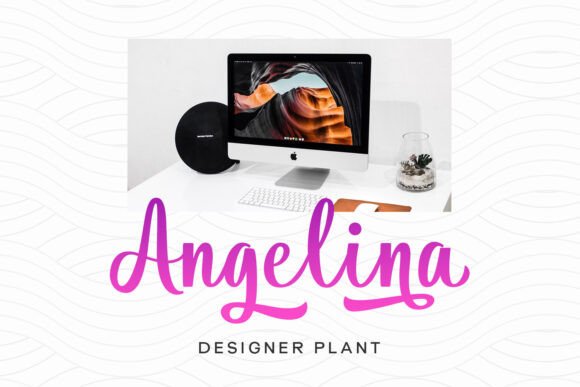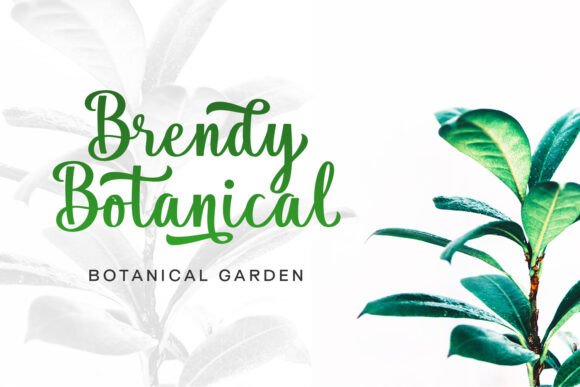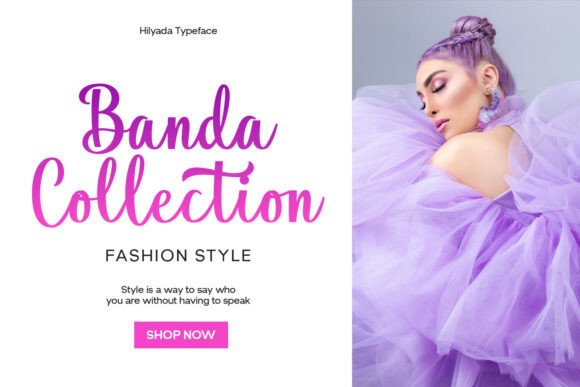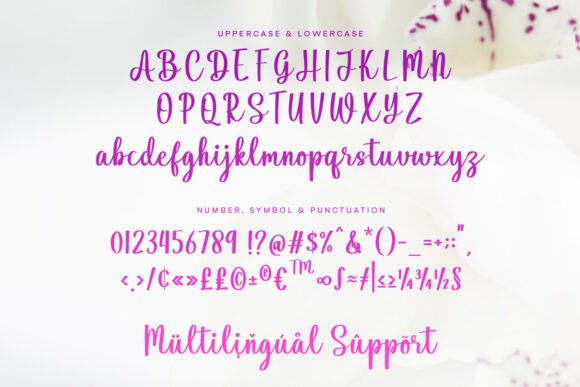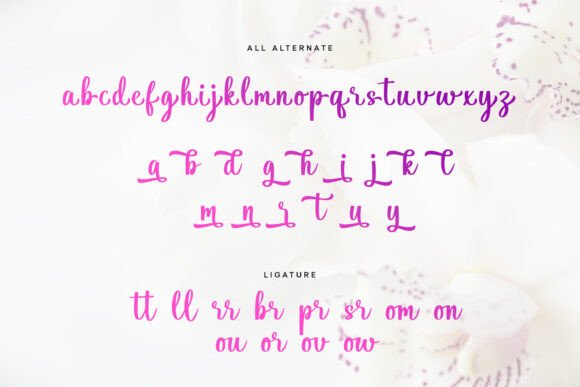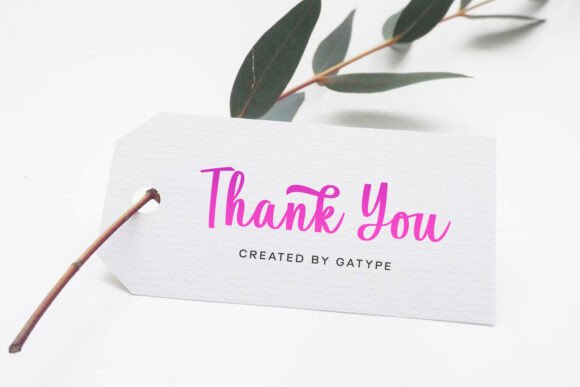
Introduction to Hilyada Font
Have you ever stumbled upon a font that transports you to a whimsical world of romance and elegance? For designers, discovering the perfect font can be a game-changer, and that’s exactly what the Hilyada Font offers. Its smooth, handwritten style is reminiscent of classic love letters, making it a timeless choice for creative projects that require a touch of sophistication.
Whether you’re working on a wedding invitation, branding, or a poster, the Hilyada Font is an excellent design resource that can elevate your work to new heights. Its high-quality features, including flowing letterforms and dynamic curving lines, create a luxurious and warm feel to the text. With its transparent background, you can easily overlay it on any design, making it a versatile choice for designers.
Hilyada Font
- Unique characteristic: elegant and modern design with subtle nuances
Honest Review: Hilyada Font
As a designer, I’m always on the lookout for high-quality design resources to elevate my creative projects. Recently, I had the chance to explore the Hilyada Font, and I must say it’s a great addition to my design arsenal.
Here’s what I like about the Hilyada Font:
- ✨ Unique and stylish design that adds a touch of elegance to any project
- ✨ Highly legible and clear, making it perfect for body text and headings
Overall, I’m impressed with the Hilyada Font’s design and versatility. While it may have some limitations, it’s a great resource for designers looking to add a touch of sophistication to their creative projects. If you’re looking for a high-quality font for your design needs, I’d definitely recommend checking it out – it’s available for free download, making it an even more attractive option.
Hilyada Font
Tips for Getting the Most Out of Hilyada Font
For optimal results, use the Hilyada Font on a transparent background to create a seamless design. Experiment with different font sizes and colors to find the perfect combination for your project.